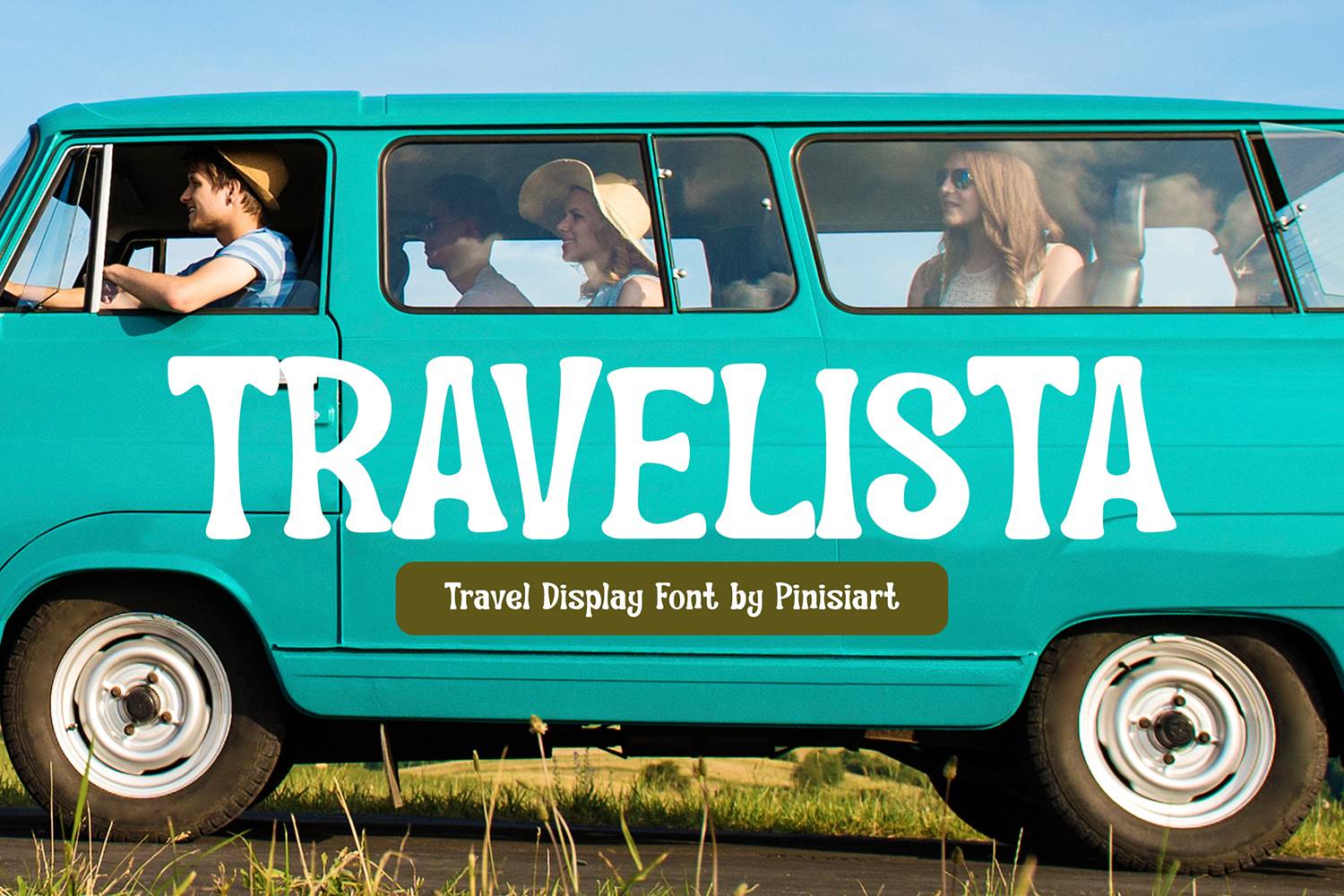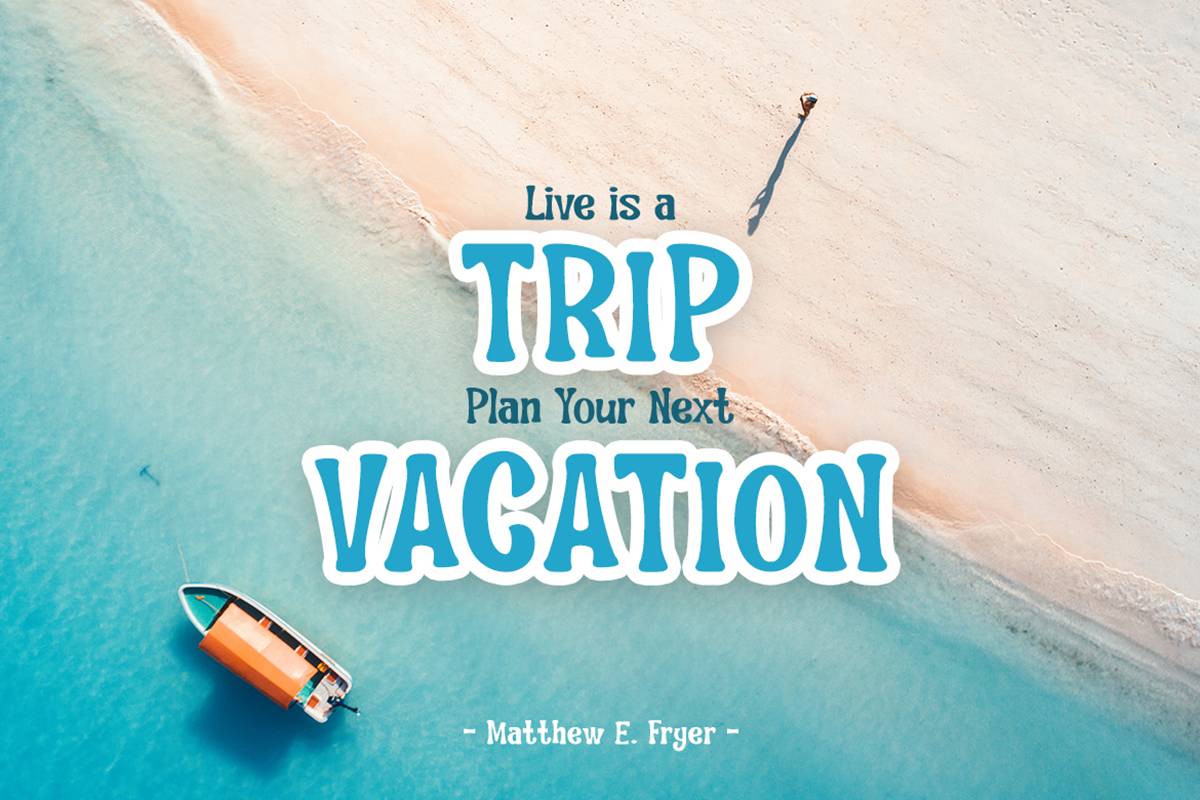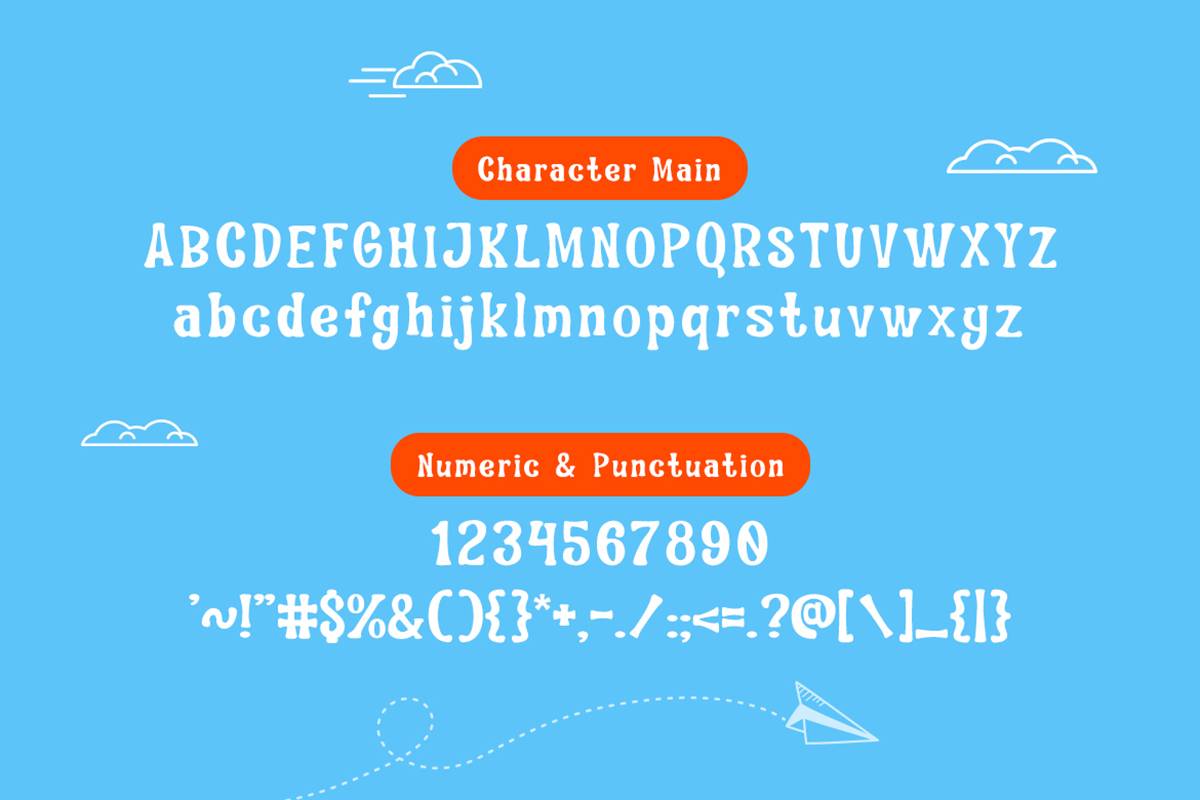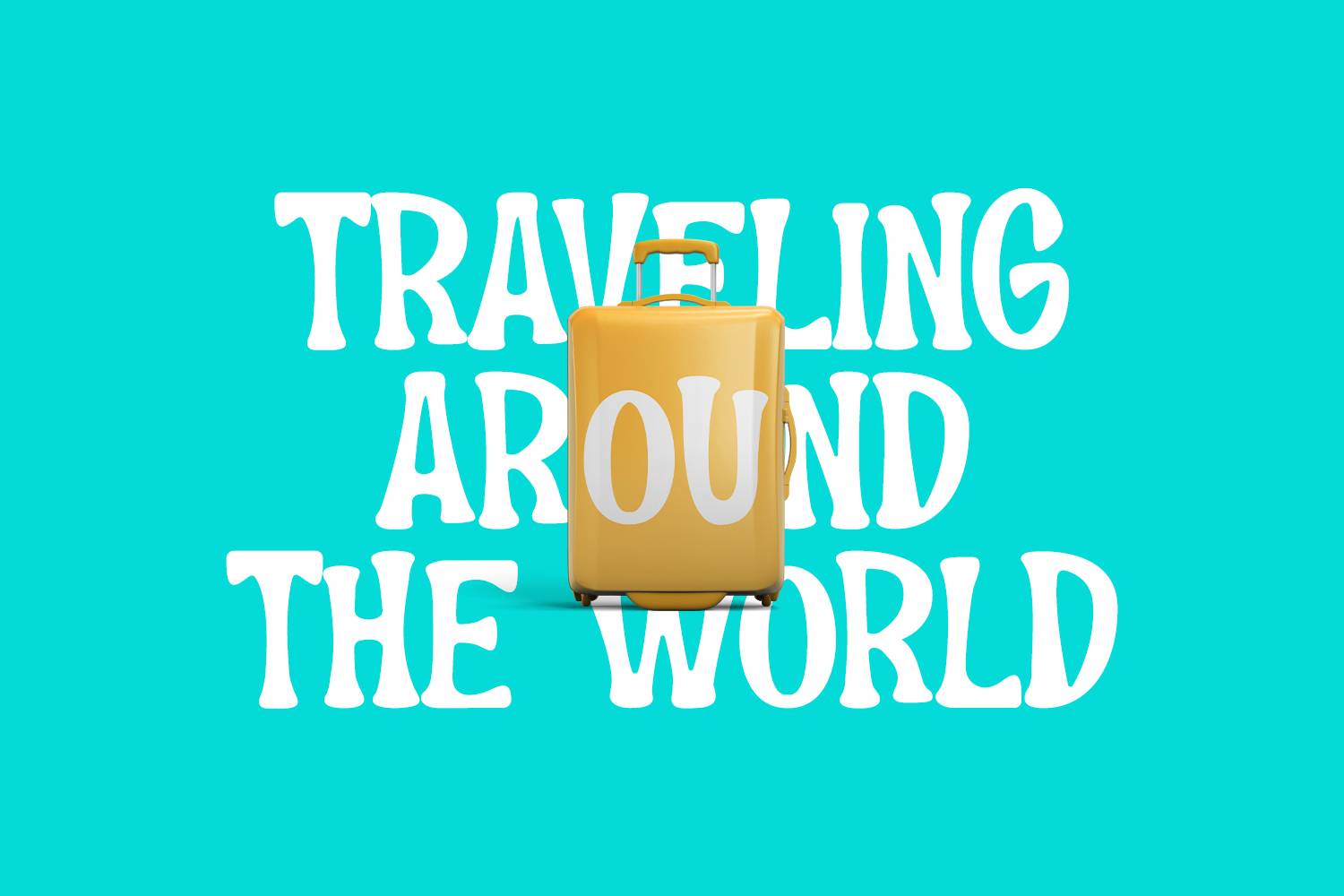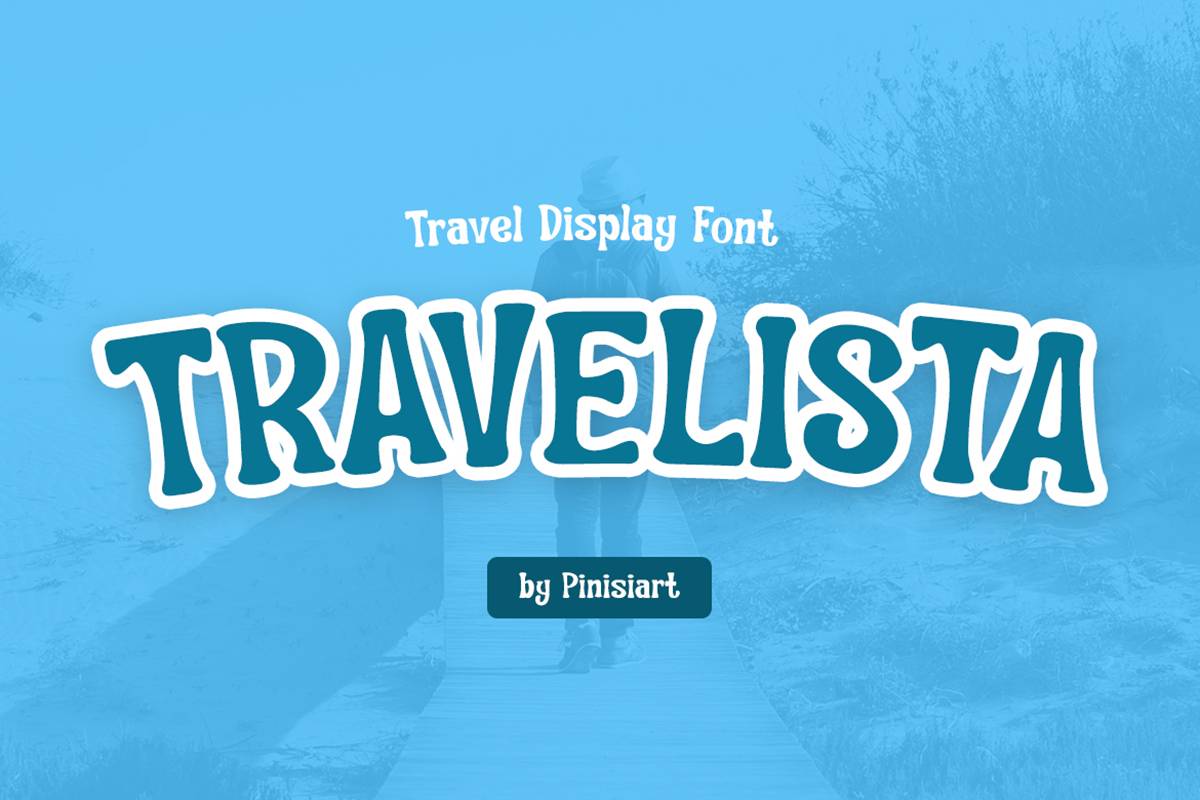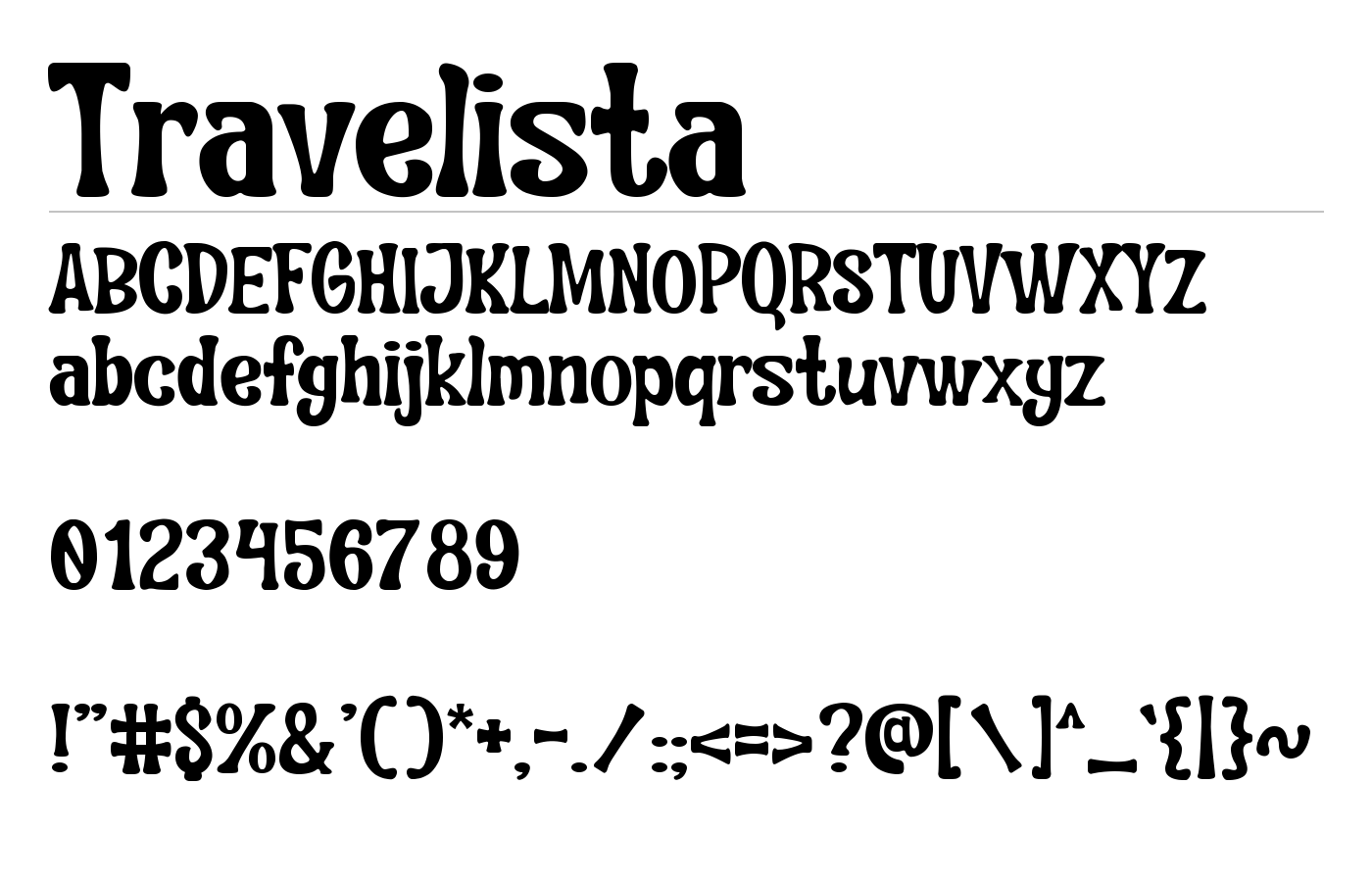
Travelista is a quirky serif font with a playful, handcrafted feel, featuring chunky, irregular letterforms and lively curves. Its medium weight and moderate contrast make it ideal for eye-catching headlines or creative branding that wants to convey fun and personality. This font works especially well for travel-themed designs, posters, and packaging where a warm, approachable vibe is desired.
Travelista Font
About Travelista Font